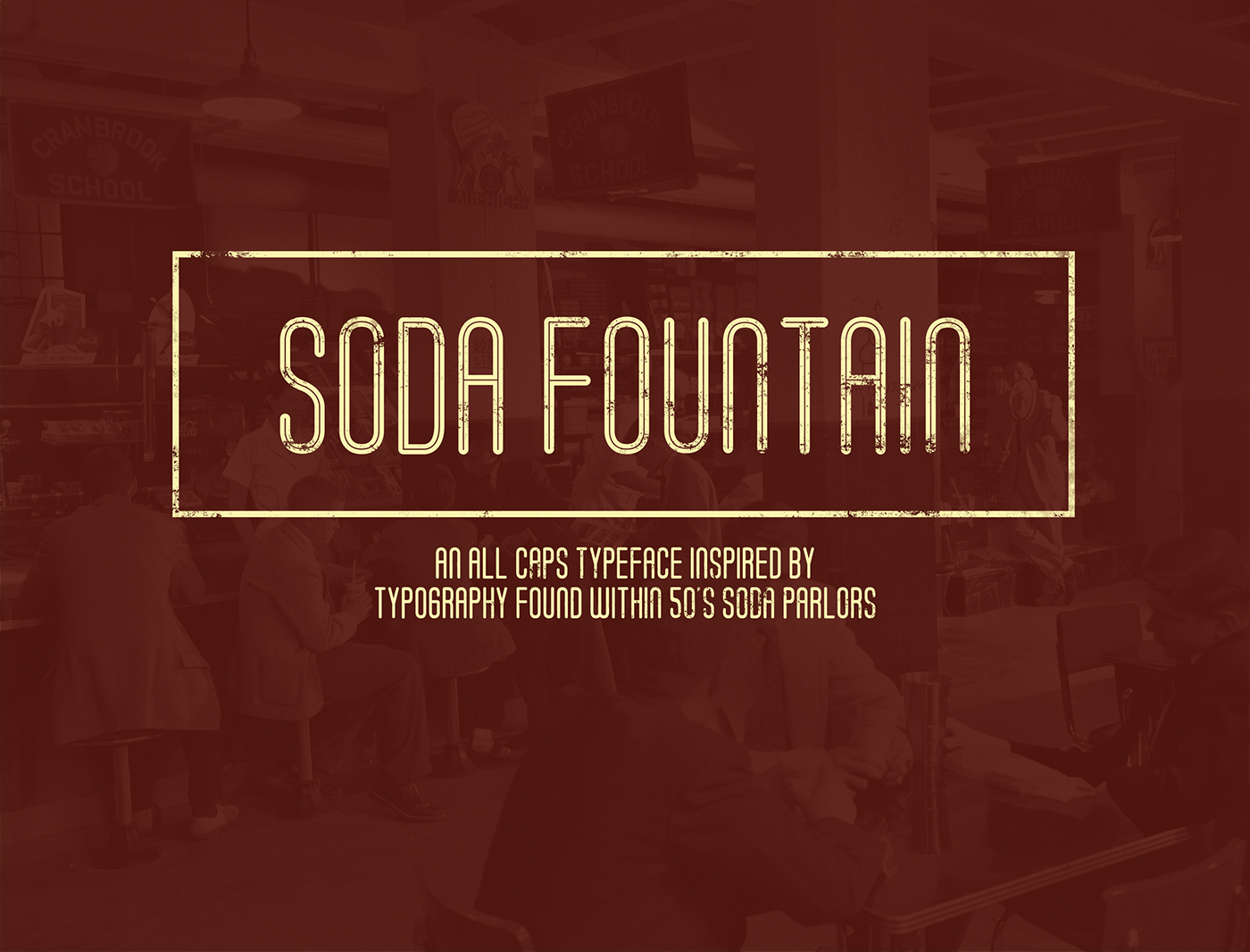
Soda Fountain (Free Typeface)
Soda Fountain is an all caps, vintage, sans-serif typeface. Inspired by typography found within diners of the 1950's, Soda Fountain emulates a vi Read More